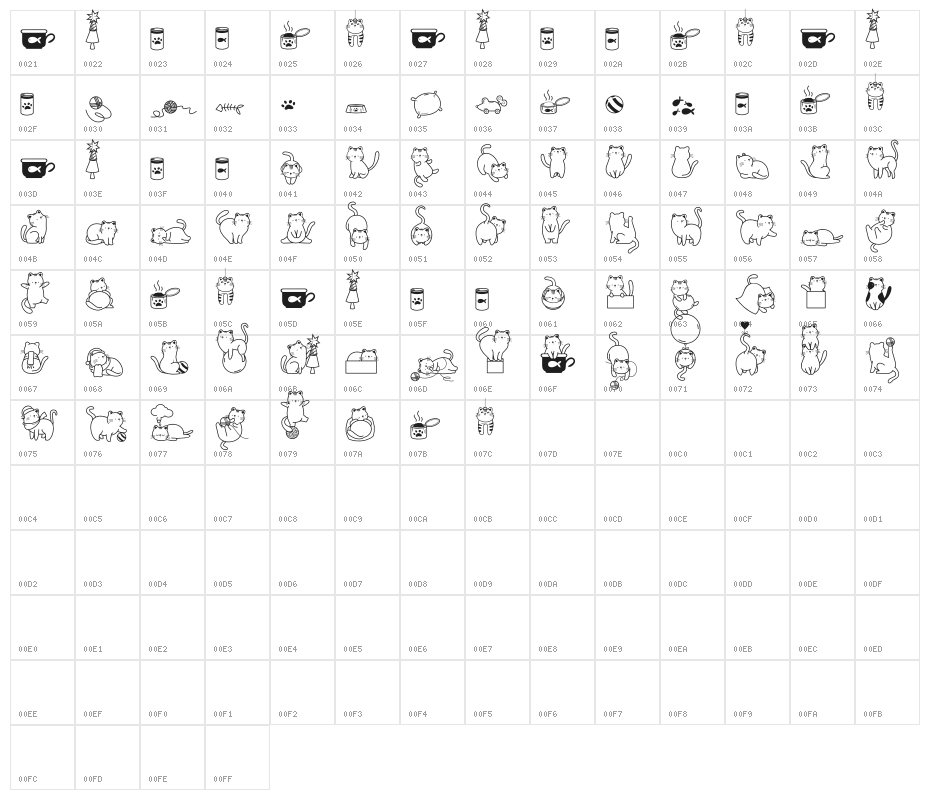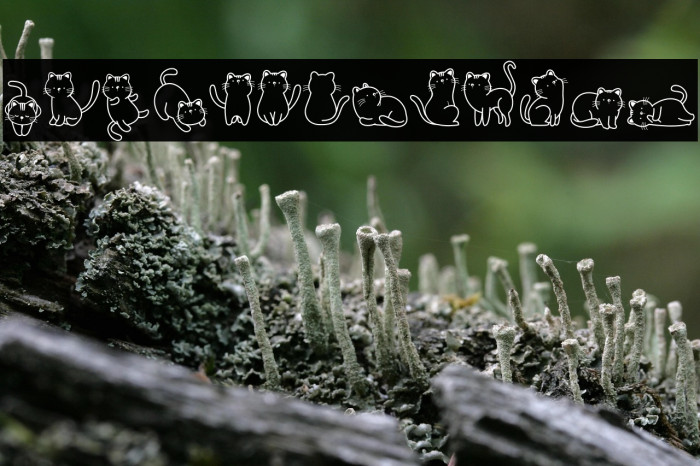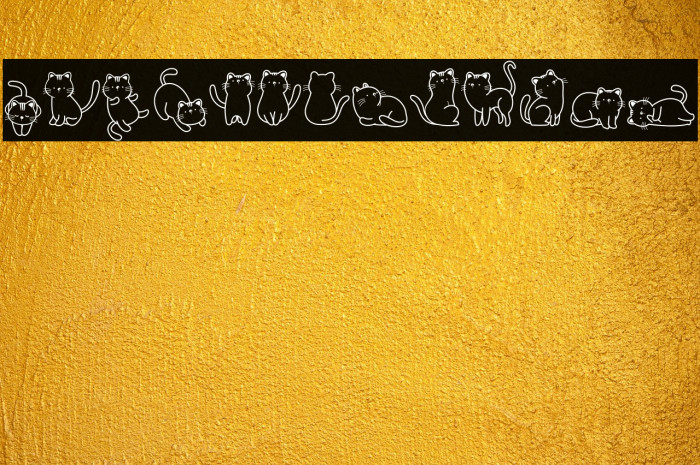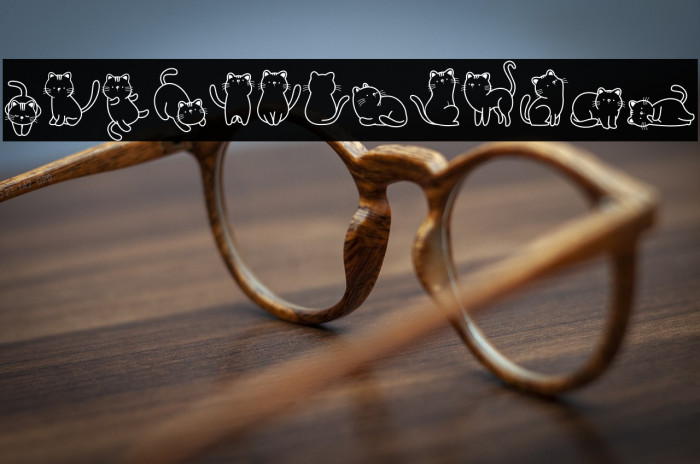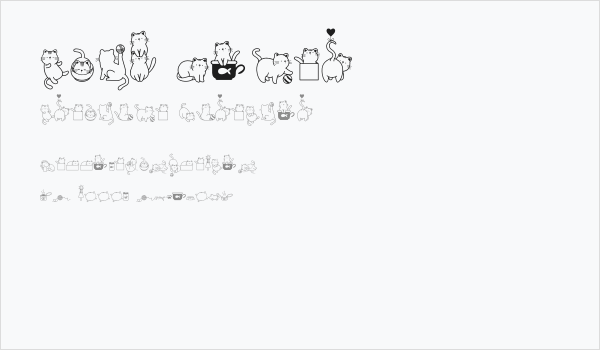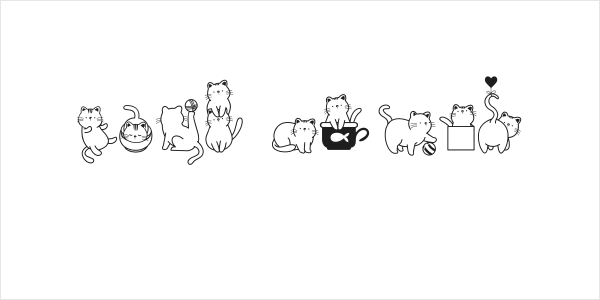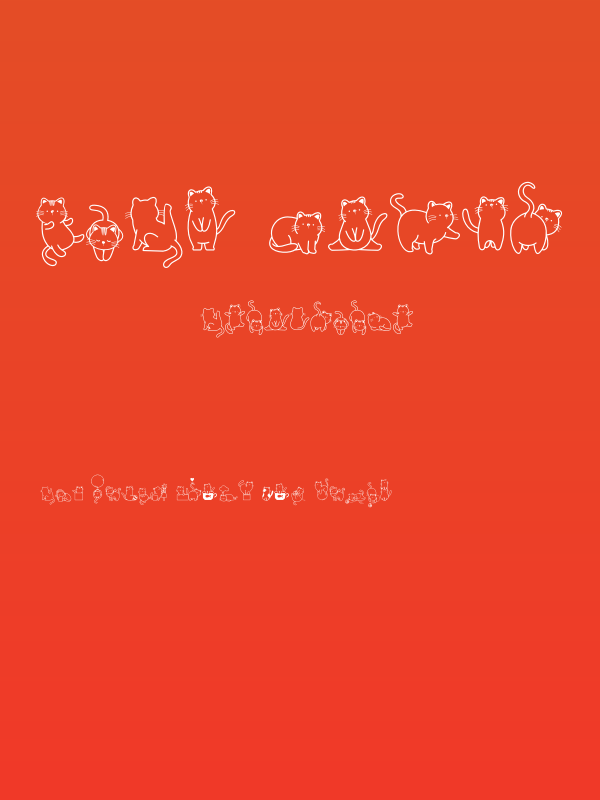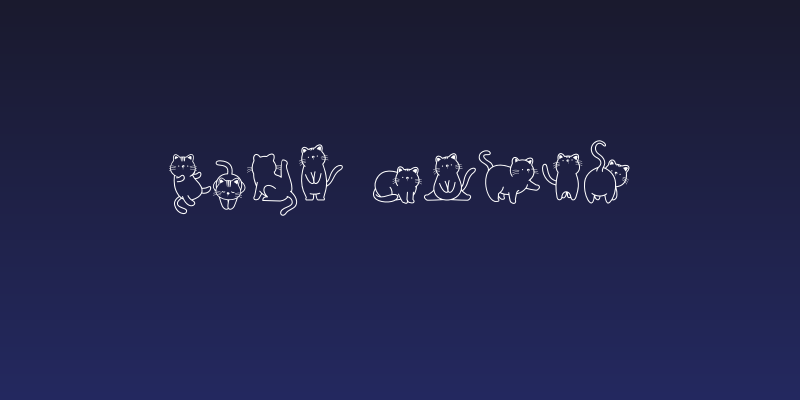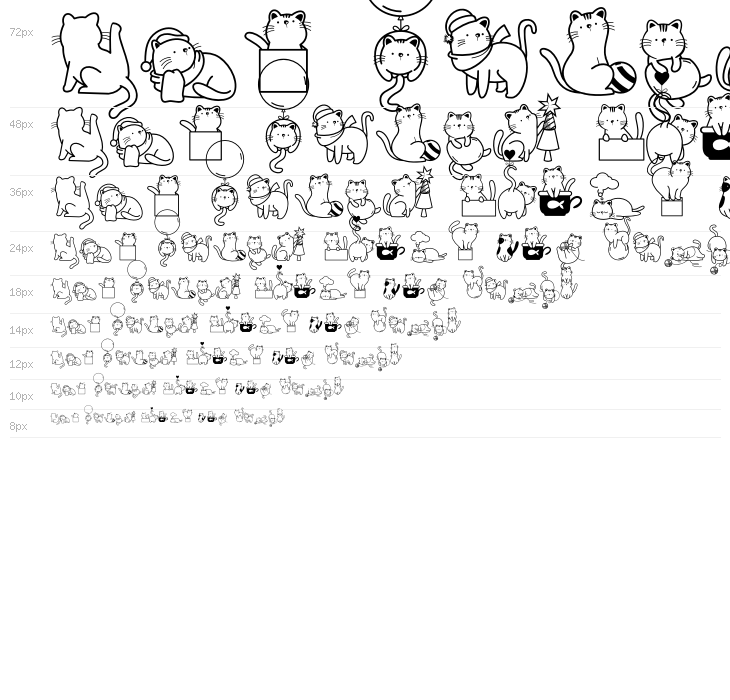
Cats Lover Font
Cats Lover Description
This is a playful and whimsical decorative font featuring a variety of cat illustrations. Each character is represented by a different cat pose or activity, capturing the charming and mischievous nature of cats. The illustrations are line-based, with a clean and minimalistic style that adds to the overall charm. The characters include cats in various positions, playing with yarn, sitting in boxes, and interacting with other objects. This font is perfect for cat lovers and adds a fun, lighthearted touch to any project.
| Use Case | Decorative elements, Illustrations, Themed designs |
| Proposed Projects | Ideal for children's books, greeting cards, pet-related branding, and playful design projects. |